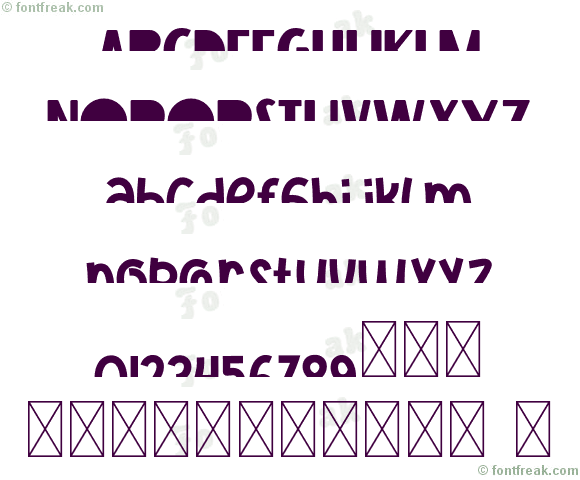
Strip Line Down
Strip Line StripUp
Strip Line Up
Strip Line Strip
Strip Line StripDown
Strip Line
Strip Line Down by Burhan Afif is a striking display font that captures attention with its unique style. This font features a modern, sans-serif design characterized by bold, geometric lines that create a sense of movement and dynamism. The stroke weight is consistent, providing a clean and contemporary feel, while the spacing between letters is meticulously crafted to ensure readability without sacrificing its artistic flair. The font's distinct decorative elements include the playful, stripped-down appearance of the letterforms, which adds a layer of creativity and intrigue.
The versatility of the Strip Line Down font makes it an excellent choice for a variety of projects. It is particularly well-suited for use in movie posters, where its bold presence can convey excitement and energy. Additionally, it works beautifully for restaurant menus, adding a modern twist that captures the essence of contemporary dining experiences. Wedding invitations can also benefit from its unique aesthetic, giving a touch of elegance while maintaining a casual vibe. Graphic designers will find it especially appealing for branding projects, as it can help to establish a strong identity for businesses in creative industries.
Targeting graphic designers, small business owners, and content creators, Strip Line Down is a font that stands out in a crowded marketplace. Its ability to blend modern design with playful elements makes it a valuable asset for anyone looking to make a statement in their visual communications. For those interested in incorporating this eye-catching typeface into their work, a Strip Line Down font free download is readily available, allowing creatives to explore its potential without any financial commitment. This font not only enhances visual appeal but also adds a distinctive character to any project it graces.